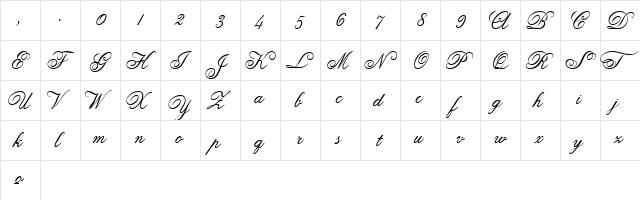
Anglia Script Standard Regular
Design Context for Anglia Script Standard Typeface
Anglia Script Standard brings a calligraphic fluidity to the page — its connecting strokes and expressive curves give it an unmistakably human quality.
Font Pairing: Combine Anglia Script Standard with a simple geometric sans for maximum contrast — the tension between flowing curves and clean structure is a classic typographic pairing.
Pro Tip: Use Anglia Script Standard for short runs of text — names, titles, or taglines. Extended body copy in script faces tires the eye quickly.